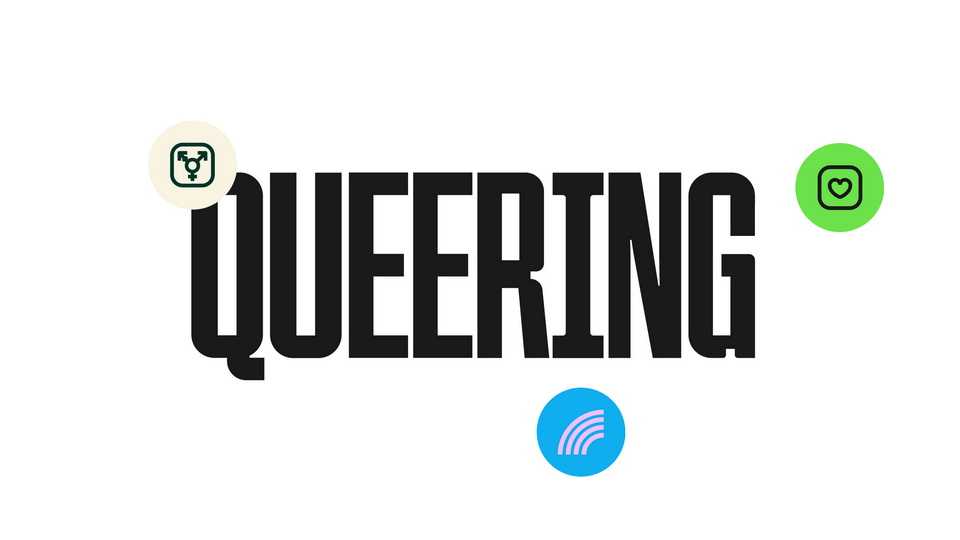
Download Queering font, a bold display typeface inspired protest posters, queer publications and underground LGBTQIA+ paraphernalia. It’s built with a set of Unicode emojis and symbols to add in-line.